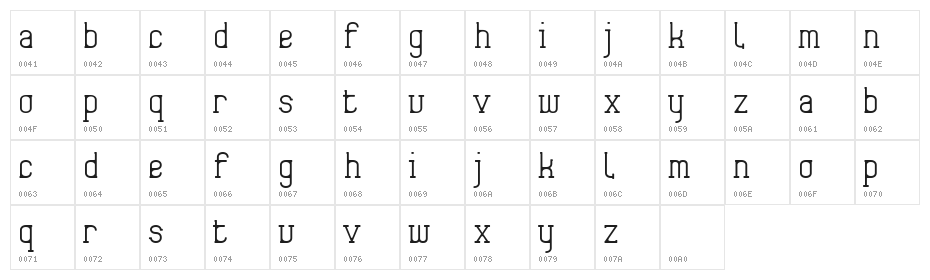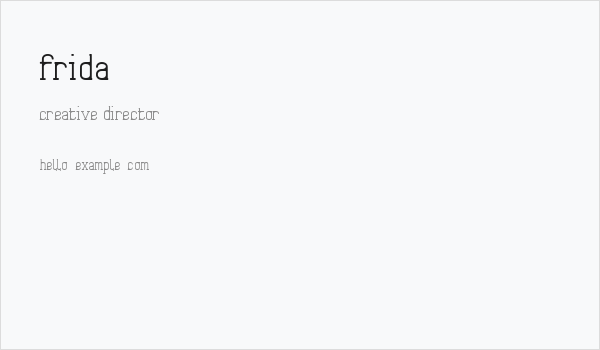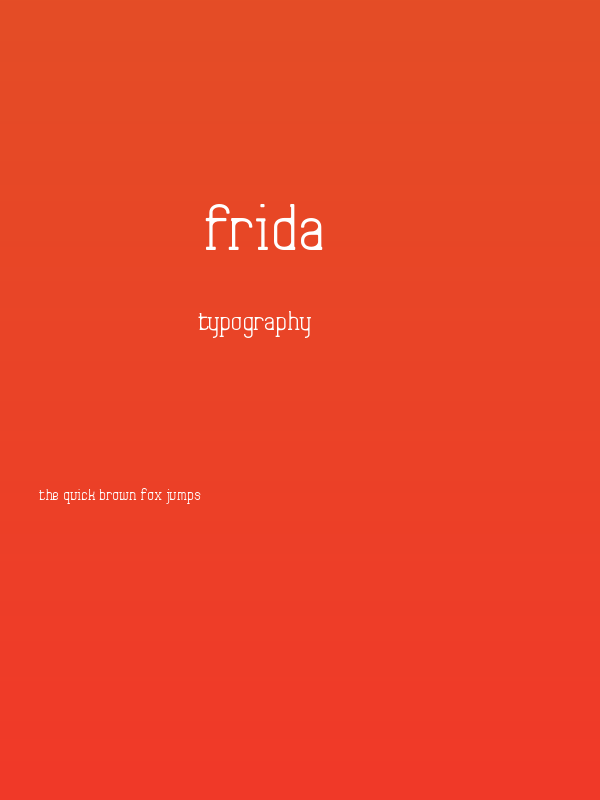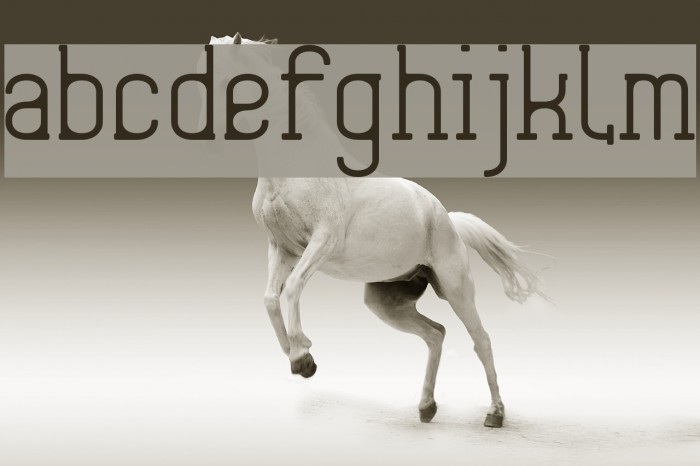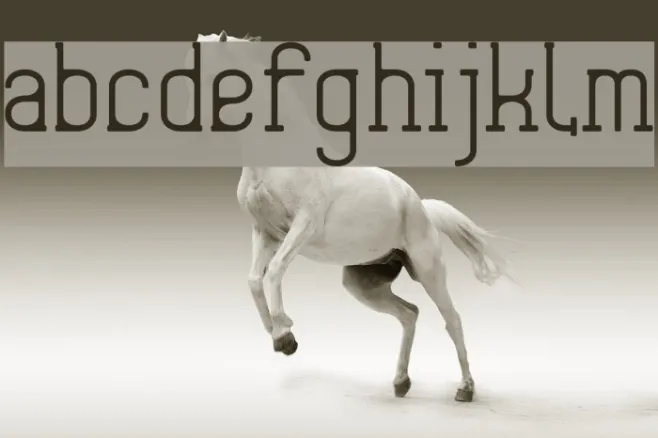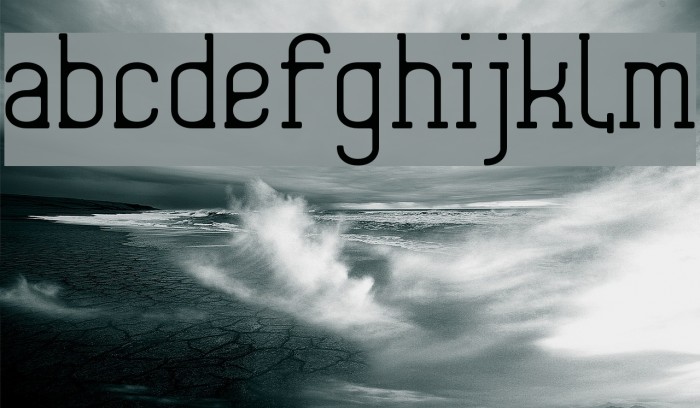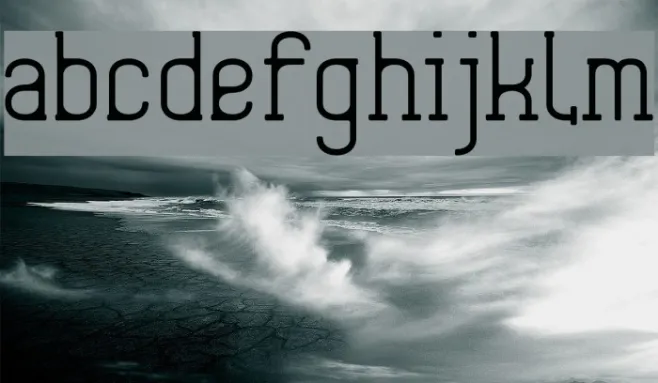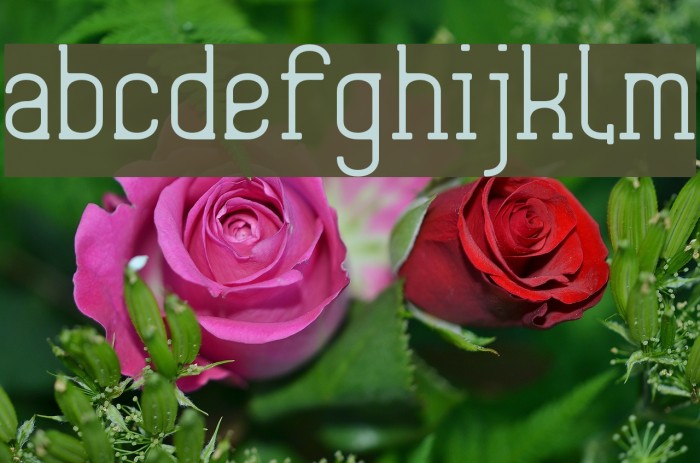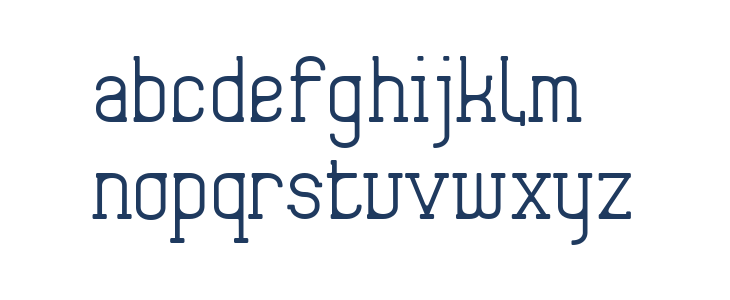
Frida01 Font
Frida01 Description
This font features a unique blend of modern and vintage aesthetics, characterized by its monospaced design. Each character is uniformly spaced, providing a clean and organized appearance. The strokes are consistent in thickness, offering a medium contrast that enhances readability. The font's rounded edges and subtle curves give it a friendly and approachable feel, while maintaining a professional look. Its versatility makes it suitable for a variety of applications, from digital interfaces to print media. The overall style is both functional and stylish, making it an excellent choice for projects that require clarity and precision.
| Use Case | Coding, Technical documentation, Minimalist design |
| Proposed Projects | Ideal for coding environments, technical documentation, and minimalist design projects. |